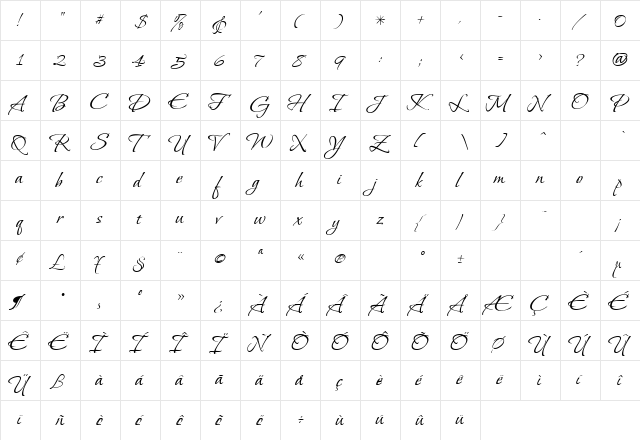
Vera Crouz Regular
| Designer | Alexandra Gophmann |
Design Context for Vera Crouz Typeface
Vera Crouz takes a measured approach to typography — its balanced proportions and neutral character make it a reliable workhorse for both digital and print work.